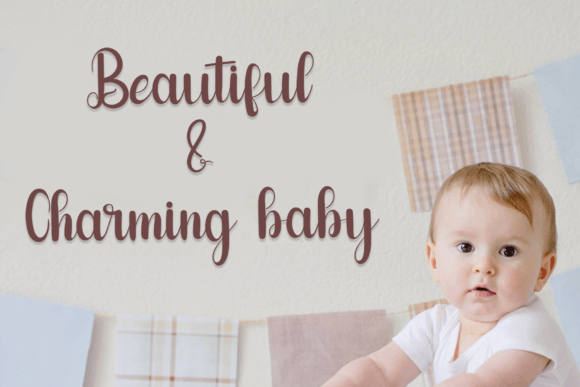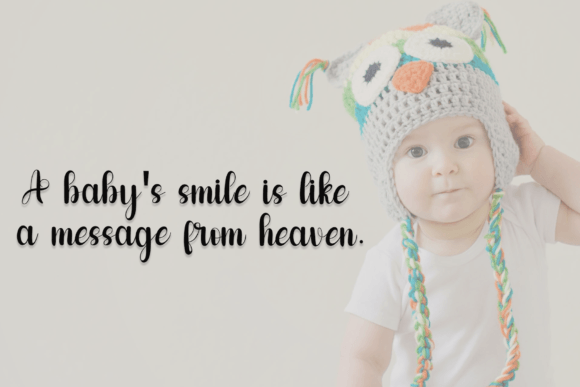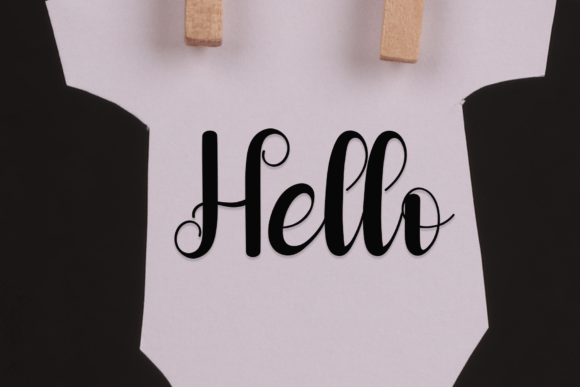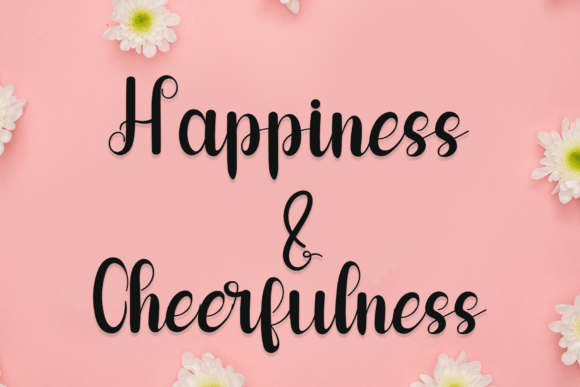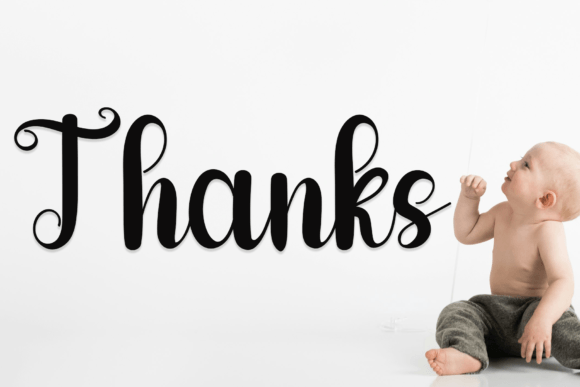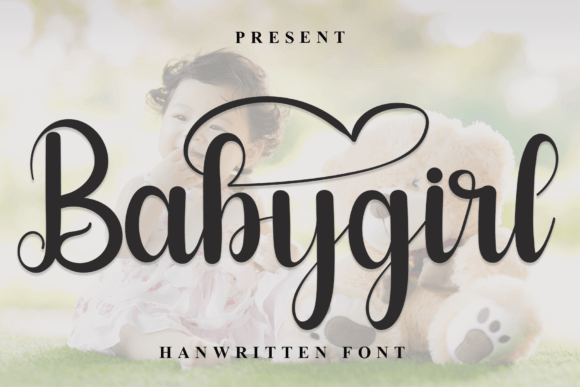
Babygirl Font: The Ultimate Choice for Elegant and Modern Designs
In the world of typography, a good font can make all the difference in elevating your design to the next level. For those seeking a touch of elegance and sophistication, the Babygirl Font is an exquisite handwritten font that is sure to capture your heart. Masterfully designed to become a true favorite, Babygirl Font strikes the perfect balance between classy calligraphic influences and a contemporary feel.
The Charm of Babygirl Font
Babygirl Font is a beautiful, handcrafted typeface that exudes a sense of luxury and refinement. Its elegant strokes and curves are reminiscent of traditional calligraphy, yet it feels fresh and modern. This unique blend of classic and contemporary styles makes Babygirl Font an ideal choice for designers and crafters looking to add a touch of sophistication to their projects.
Key Features of Babygirl Font
- Exquisite Handwritten Design: Babygirl Font boasts a stunning handwritten design that is sure to impress. Its intricate strokes and curves give it a personal and human touch.
- Classy Calligraphic Influences: The font’s calligraphic influences are evident in its elegant letterforms and flowing connections.
- Contemporary and Fresh: Despite its classic roots, Babygirl Font feels modern and fresh, making it perfect for a wide range of design applications.
- Highly Versatile: Babygirl Font is suitable for various design projects, from branding and advertising to packaging and digital media.
Why Choose Babygirl Font?
With so many fonts available, why choose Babygirl Font? Here are a few compelling reasons:
- Unique and Eye-Catching: Babygirl Font is a one-of-a-kind typeface that is sure to grab attention and leave a lasting impression.
- Elegant and Sophisticated: The font’s elegant design makes it perfect for high-end branding, luxury packaging, and sophisticated advertising campaigns.
- Easy to Read: Despite its intricate design, Babygirl Font is highly legible, making it suitable for body text and longer content.
- Support for Multiple Languages: Babygirl Font supports multiple languages, making it a great choice for global brands and designers.
Design Applications for Babygirl Font
Babygirl Font is an incredibly versatile typeface that can be used in a wide range of design applications, including:
- Branding and Logo Design: Create stunning logos and brand identities with Babygirl Font’s elegant and sophisticated design.
- Packaging Design: Add a touch of luxury to your packaging designs with Babygirl Font’s beautiful, handcrafted letterforms.
- Advertising and Marketing: Use Babygirl Font to create eye-catching ads and marketing materials that are sure to grab attention.
- Digital Media: Babygirl Font is perfect for digital media, including social media graphics, website headers, and more.
In conclusion, Babygirl Font is an exquisite handwritten font that is sure to become a true favorite among designers and crafters. Its unique blend of classy calligraphic influences and contemporary freshness makes it perfect for a wide range of design applications. With its elegant design, high legibility, and versatility, Babygirl Font is an excellent choice for anyone looking to elevate their designs to the highest levels. So why wait? Fall in love with Babygirl Font and bring your projects to life with its stunning, handcrafted beauty.